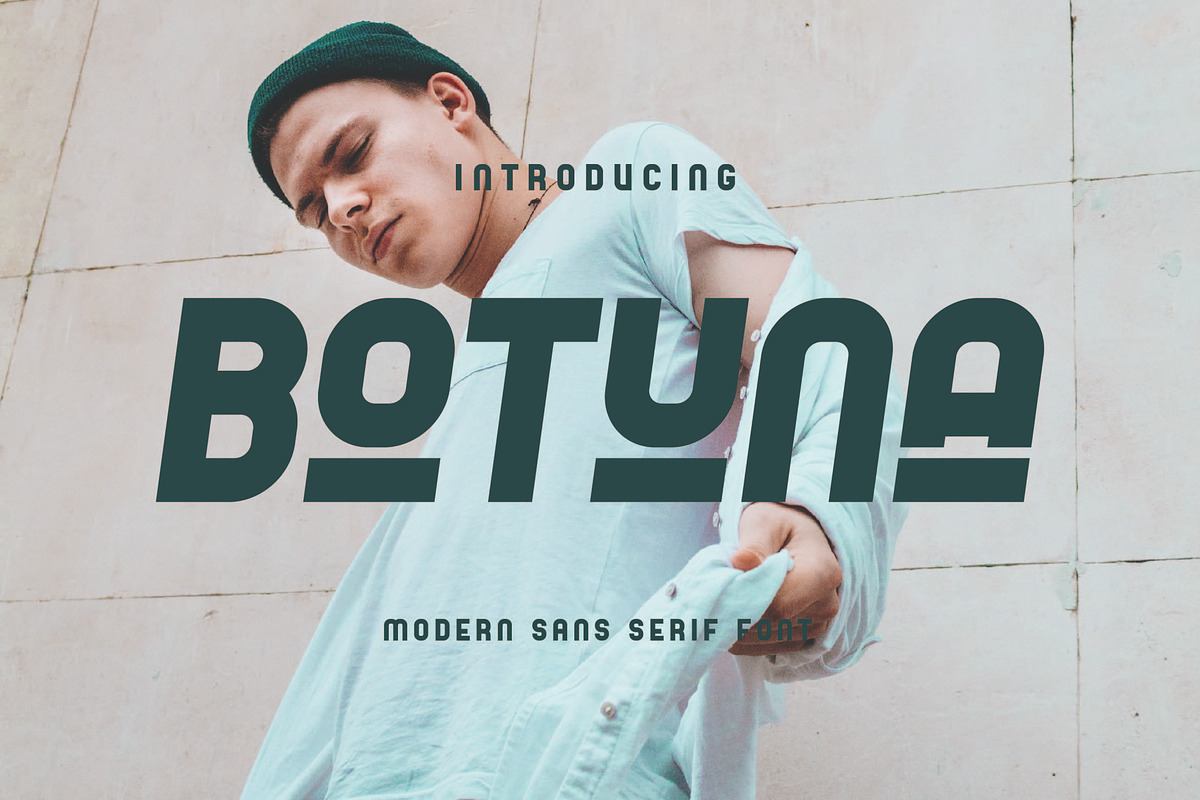
Botuna - Modern Sans Serif Font Free Download
Botuna - Modern Sans Serif Font Free Download is a clean and contemporary typeface designed for modern designs. With its geometric shapes, balanced letterforms, and sleek lines, Botuna is ideal for branding, editorial design, websites, logos, and any creative project that demands a stylish and professional look.
This sans-serif font brings simplicity and clarity to your typography, making it perfect for both display and body text. Whether you're designing for a tech company, creating a modern website, or crafting minimalist promotional materials, Botuna offers versatility and elegance.